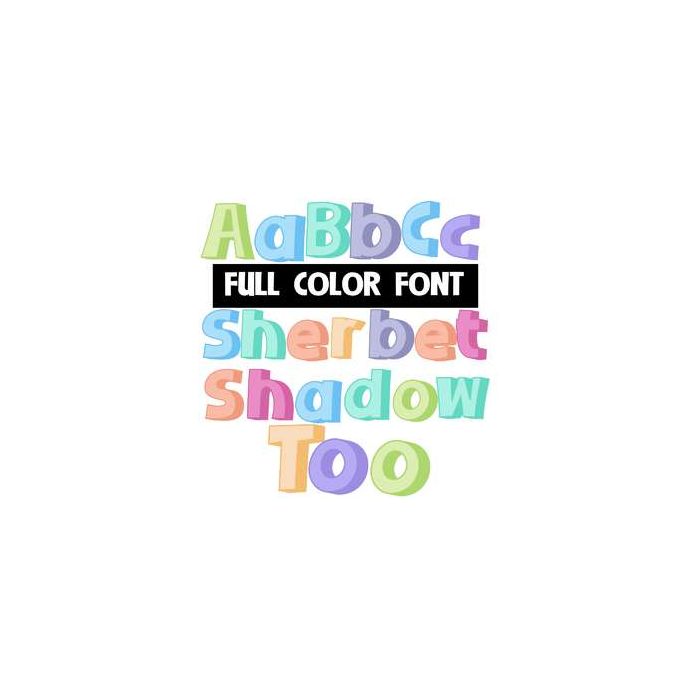
This full-color font goes perfectly with it's sister font, Sherbet Shadow. Each letter in this font has a separate color alternate that you can access through your system's character map. This font works best for titles, displays, posters and more. Please note color fonts will show as black in non compatible programs. This font type is compatible with Silhouette Studio.